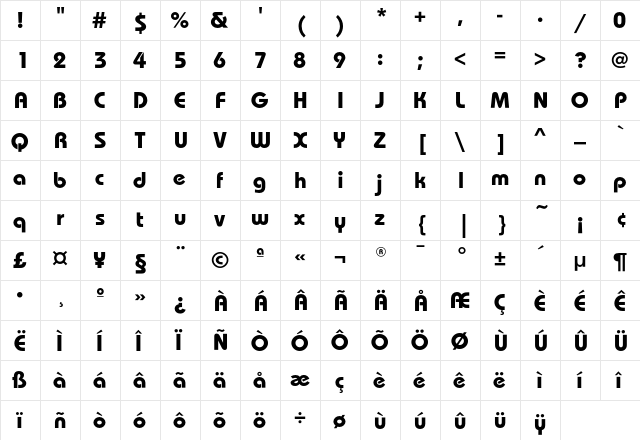
BauhausEF-Bold Regular
Design Context for BauhausEF-Bold Typeface
BauhausEF-Bold offers clean, dependable letterforms without strong stylistic allegiance, making it a practical choice for designers who need flexibility. The heavy weight commands attention and anchors typographic hierarchies.